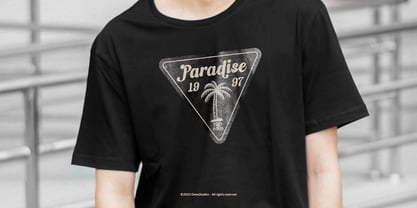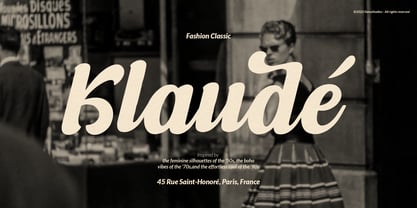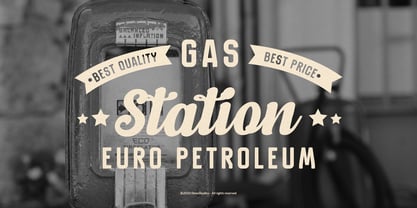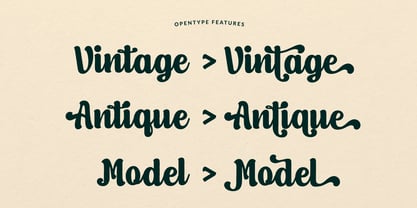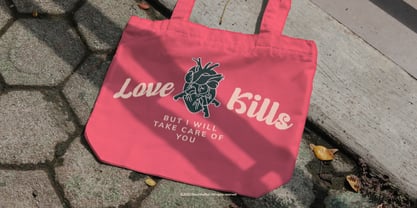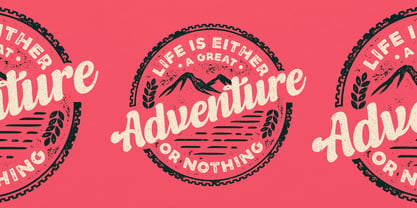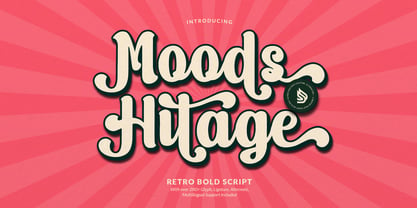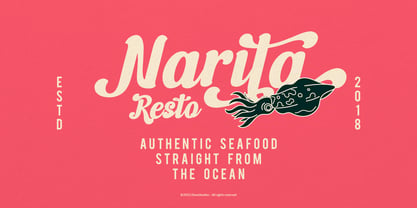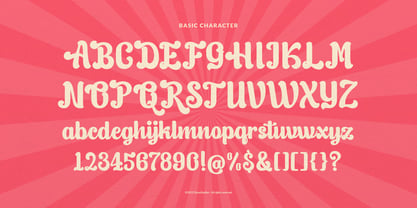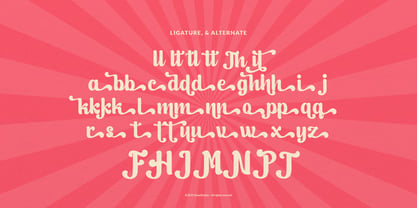
Moods Hitage
por Denustudio
La familia tipográfica Moods Hitage fue diseñada por Dede Nugraha y publicada por Denustudio. Moods Hitage contiene 2 estilos y opciones de paquete familiar. Más información sobre esta familia
Moods Hitage | Retro Bold Script, from Denustudios, suitable for any projects such as: logos, branding projects, homeware designs, product packaging, mugs, quotes, posters, shopping bags, t-shirts, book covers, name card, invitation cards, greeting cards, label, photography, watermark, special events, and all your other lovely projects that need Retro Bold Script a taste.